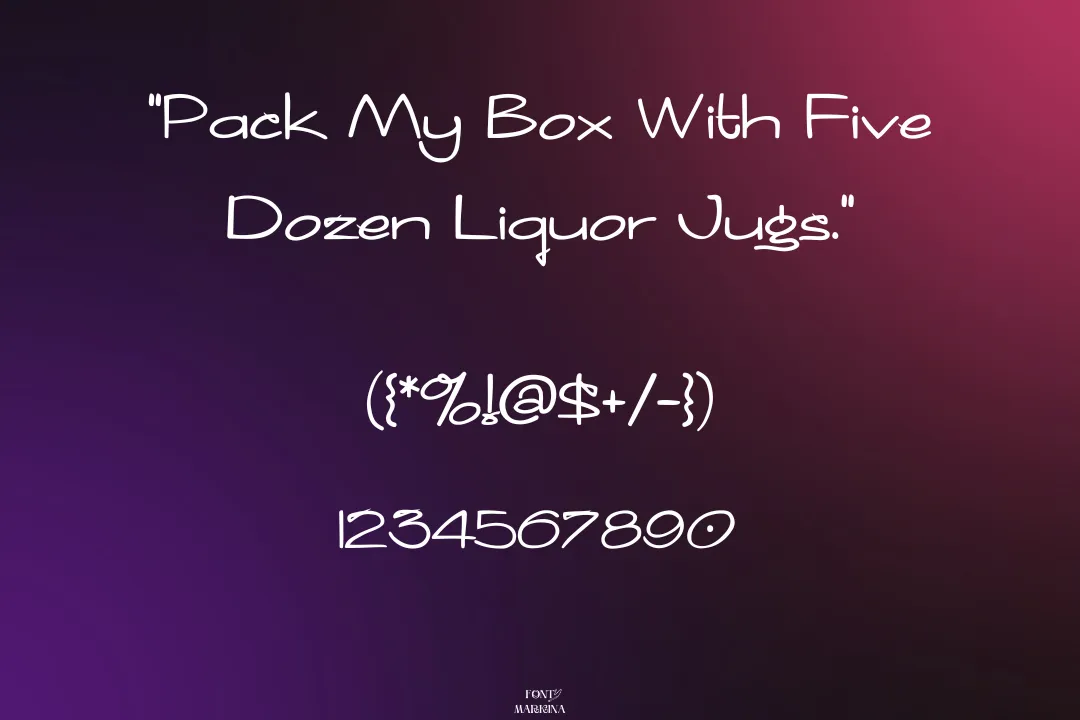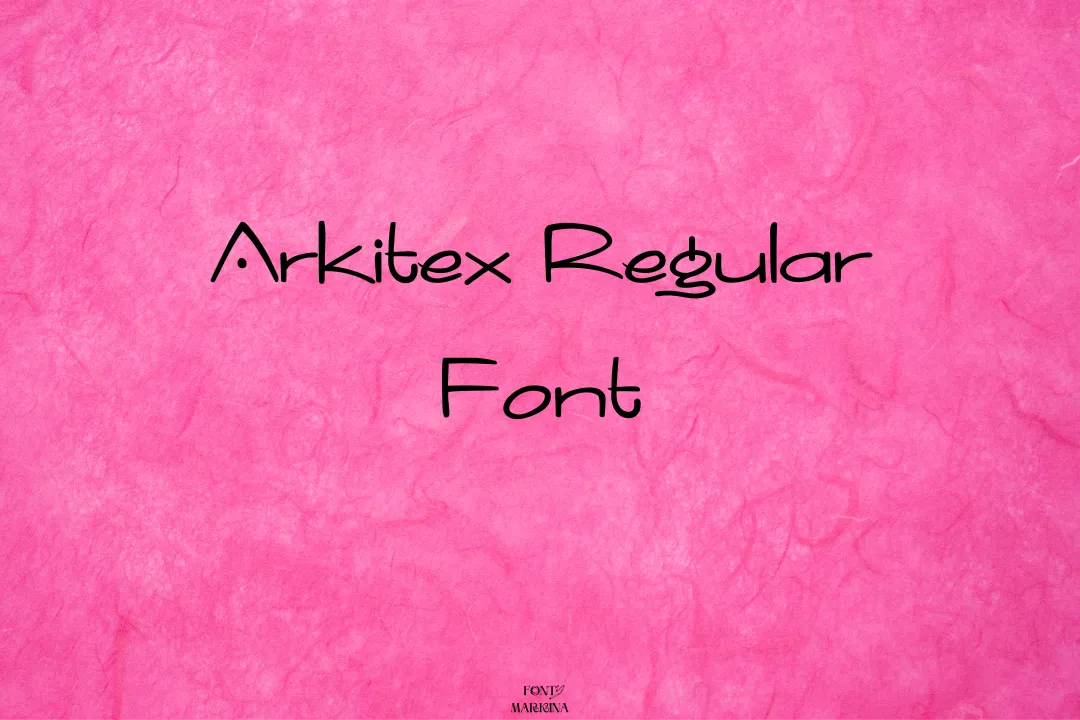
About Arkitex Regular Font
The Arkitex Regular Font looks like the logo texture family and comes in various types of weights and styles such as Bold, italic, and regular. it is specifically designed to be used in logos and branding materials. You may easily get the Arkitex regular free in both OpenType and TrueType file formats.
Uses of Arkitex Regular Font
This font typically has a unique style that sets them apart from other font types and is often customized to match the look and feel of a particular brand. This font is often unique and stylish in design, with modern lines. It is designed to work in a variety of contexts, from business cards to websites, and in various sizes and colors.
This font can be tailored to a brand’s specific needs, including the choice of specific letterforms, proportions, and spacing. It is often designed to be one-of-a-kind, helping to differentiate a brand from its competitors.
Arkitex Regular Font View
What type of font is Arkitex Regular Font?
The Arkitex Regular Font looks like the logo texture family and comes in various types of weights and styles such as Bold, italic, and regular. it is specifically designed to be used in logos and branding materials.
Where can I utilize the Arkitex Regular Font?
It is designed to work in a variety of contexts, from business cards to websites, and in various sizes and colors. This font can be tailored to a brand’s specific needs, including the choice of specific letterforms, and proportions.